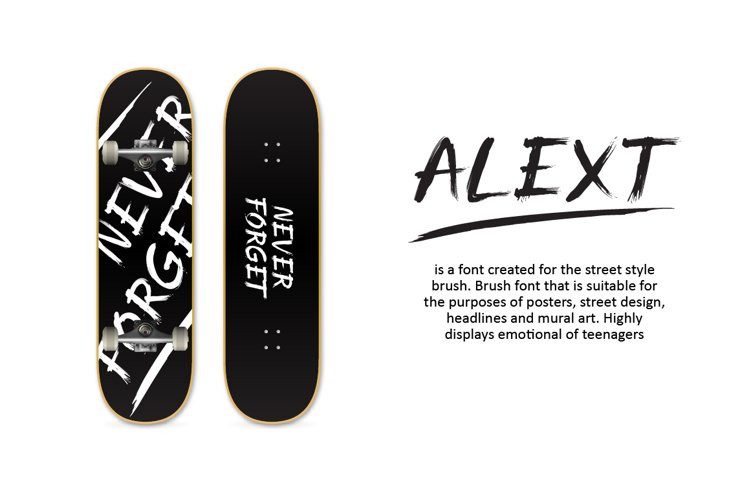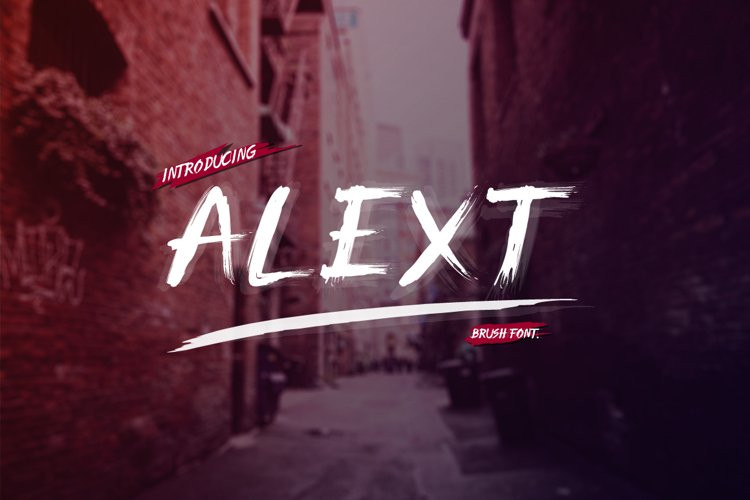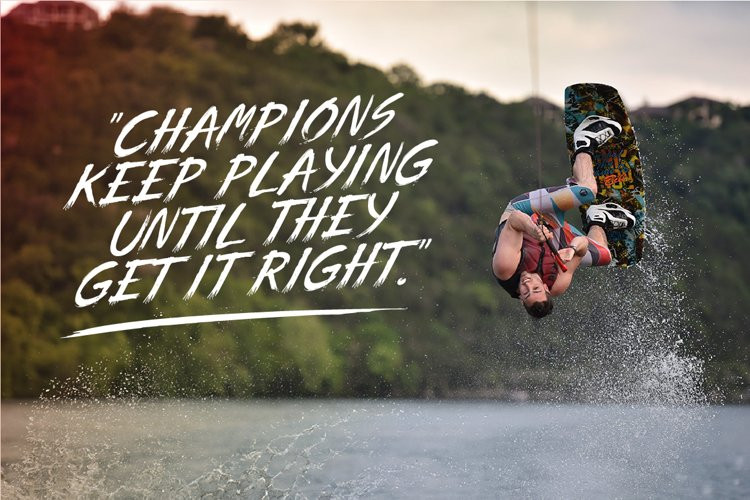
Alext Font
Alext FontAlext is a brush font that inspired from graffiti of the brush which has its own character. Alext displays of emotion and passion that is suitable for use in theme for band , street art , passion or anxiety.